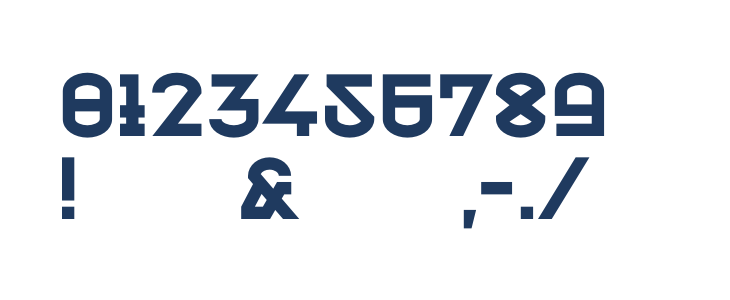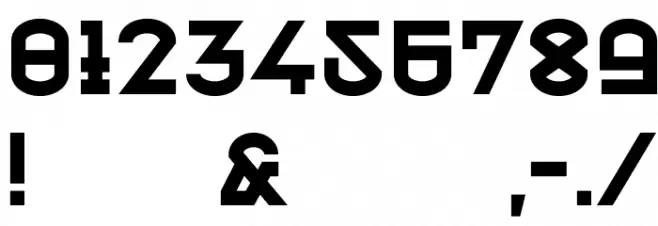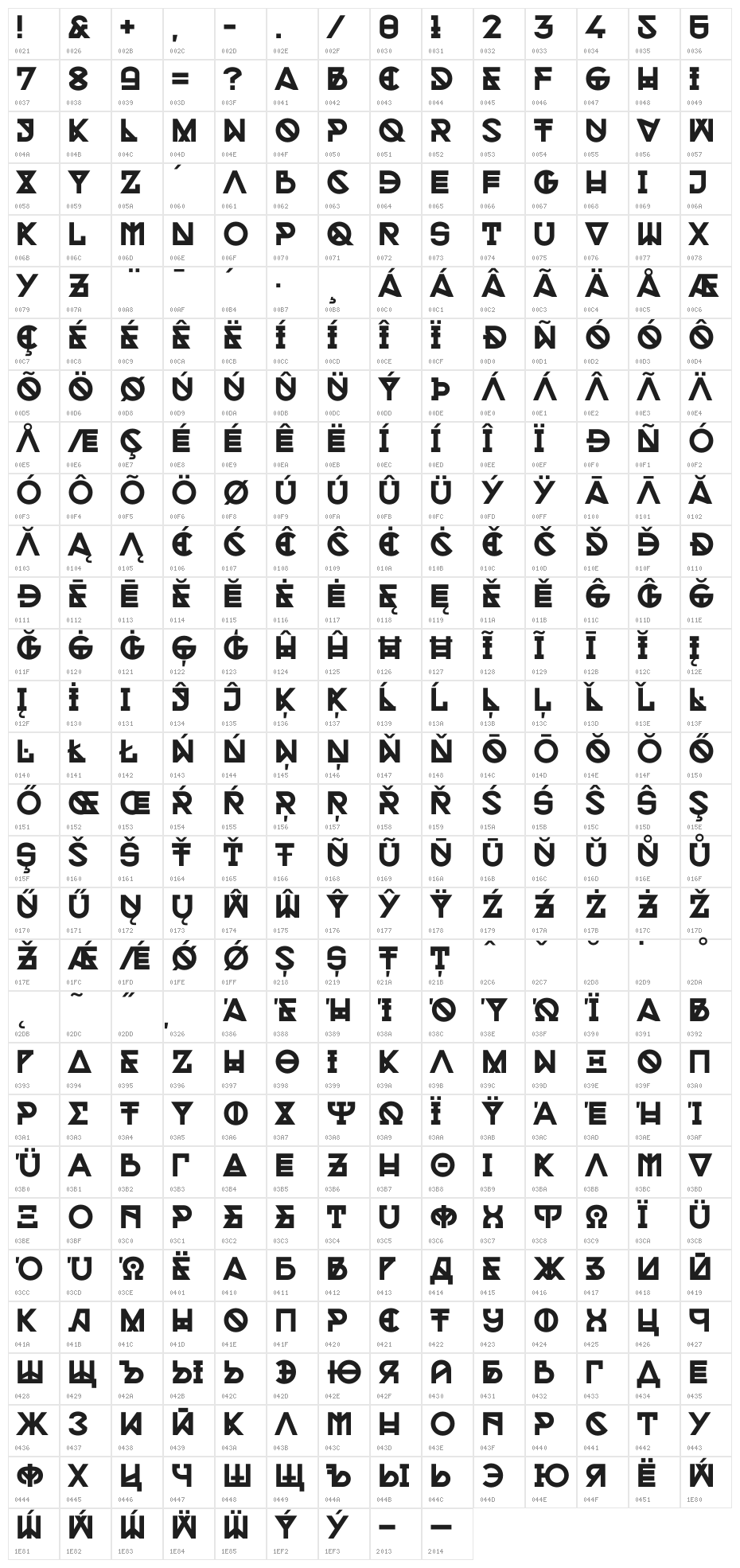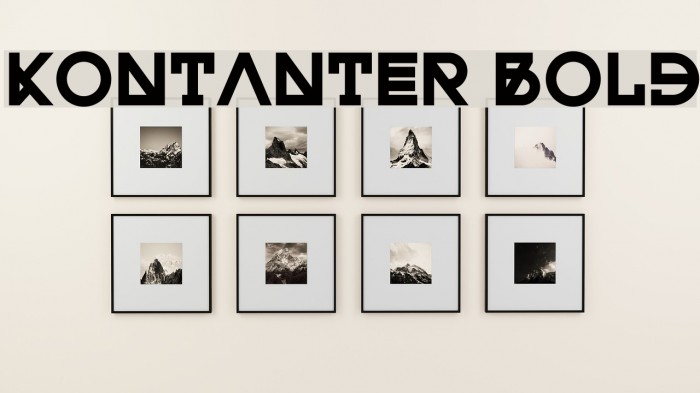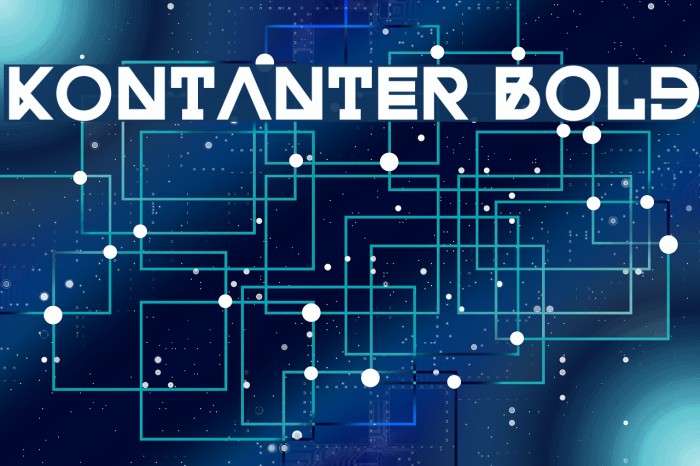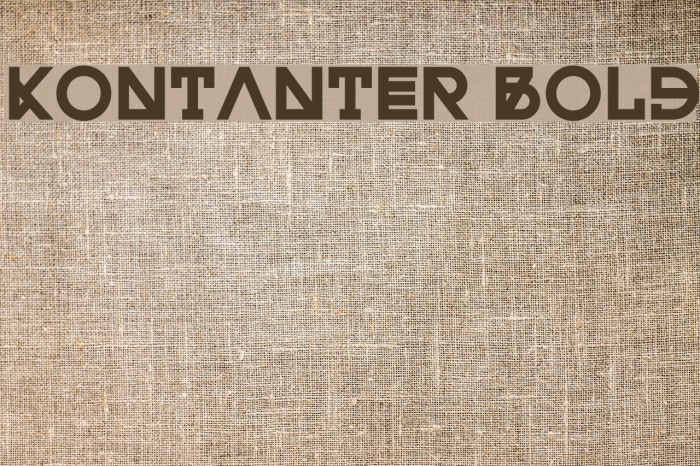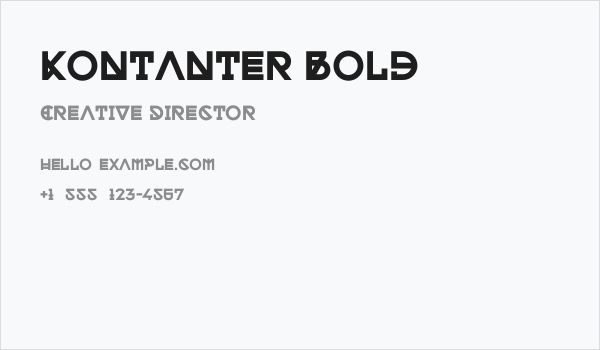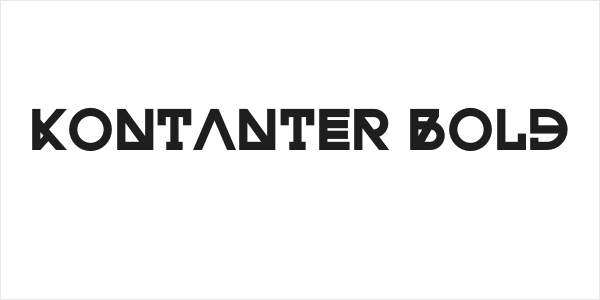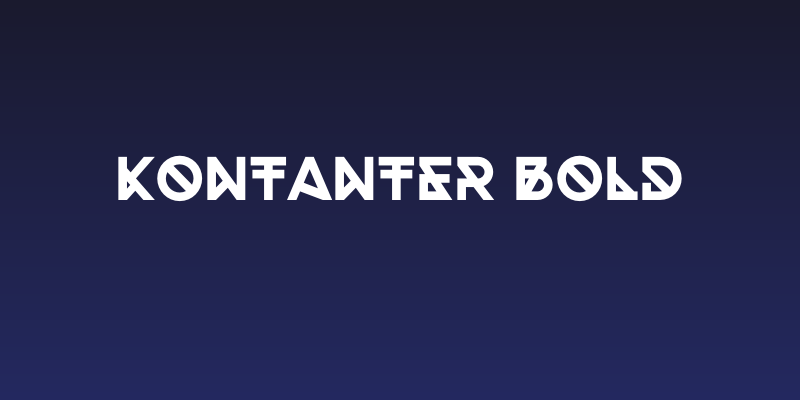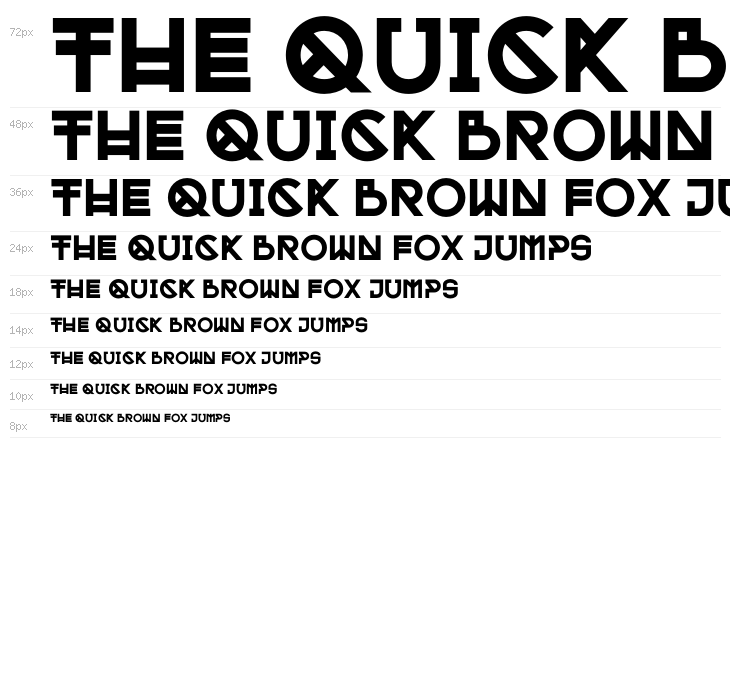
Kontanter Bold Font
Kontanter Bold Description
This font features a bold and geometric design, characterized by sharp angles and a strong presence. The uppercase letters exhibit a unique style with cut-out shapes and a futuristic aesthetic, making it stand out in any design. The numbers and special characters maintain the same boldness and geometric precision, ensuring consistency throughout. The overall appearance is modern and eye-catching, suitable for projects that require a distinctive and impactful look.